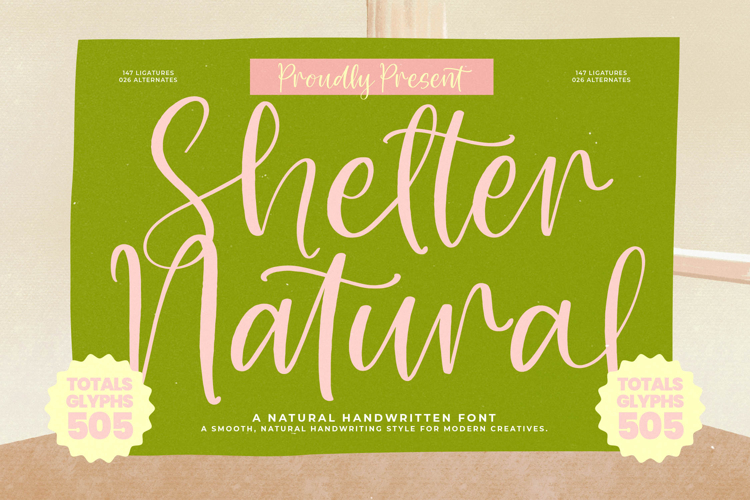
Shelter Natural - Natural Handwritten Font
Unlock the power of genuine connection with the organic elegance of Shelter Natural - Natural Handwritten Font. This signature script captures the beauty of effortless handwriting, delivering a warm and intimate voice to any design project. Its flow is meticulously balanced, featuring generous curves and an authentic, smooth baseline that avoids the stiffness often found in digital calligraphy. It is the definitive choice for creatives seeking a hand-drawn aesthetic without compromising readability or professional finish.